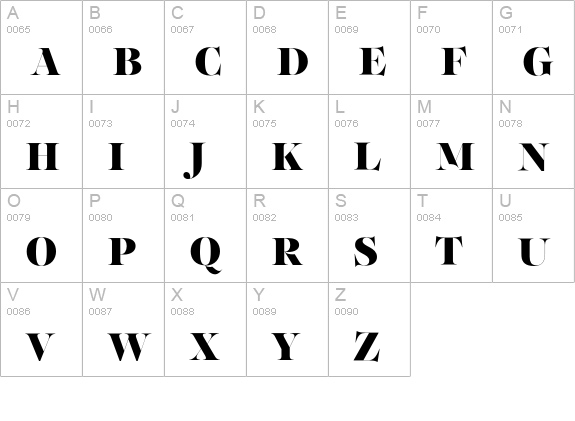
PFRegalFinessePro-Black is a maximum-weight, dramatic variant in the PFRegalFinessePro typeface family \xE2\x80\x94 well suited to maximum-impact headlines, posters, and packaging.
PFRegalFinessePro-Black is a sophisticated and elegant font that exudes a sense of luxury and refinement. Its bold and striking appearance makes it perfect for creating eye-catching headlines, titles, and branding materials. The sharp serifs and clean lines give it a timeless and classic look that commands attention. The best part? PFRegalFinessePro-Black is available for free download at FontsMarket.com. This means you can enhance your design projects with this premium font without having to spend a dime. Whether you're working on a professional project or simply looking to elevate your creative work, this font is a must-have in your collection. Don't miss out on the opportunity to add PFRegalFinessePro-Black to your font library today. Download it for free at FontsMarket.com and bring a touch of sophistication to your designs.